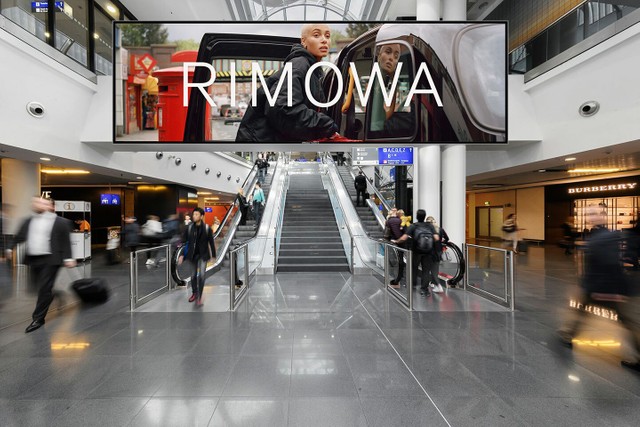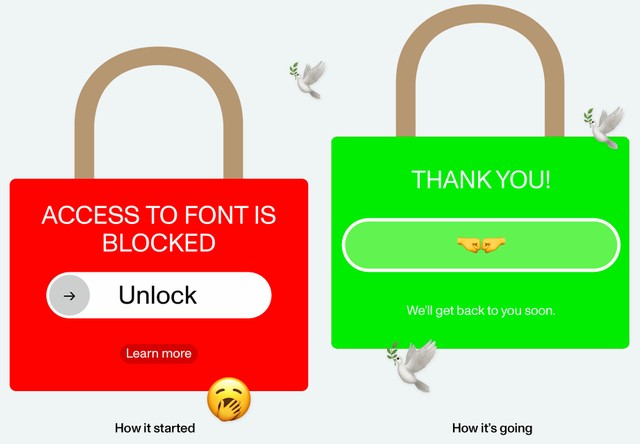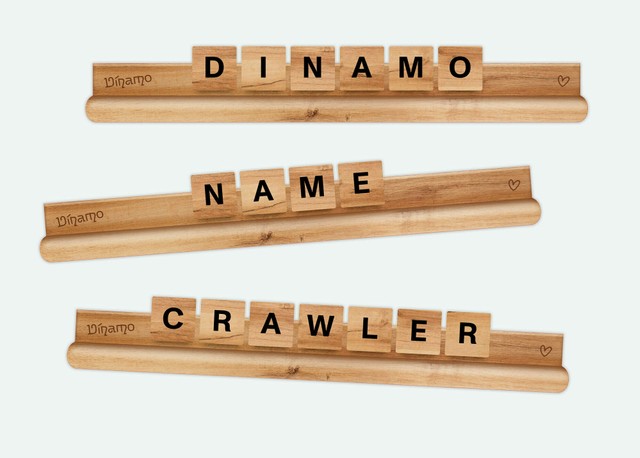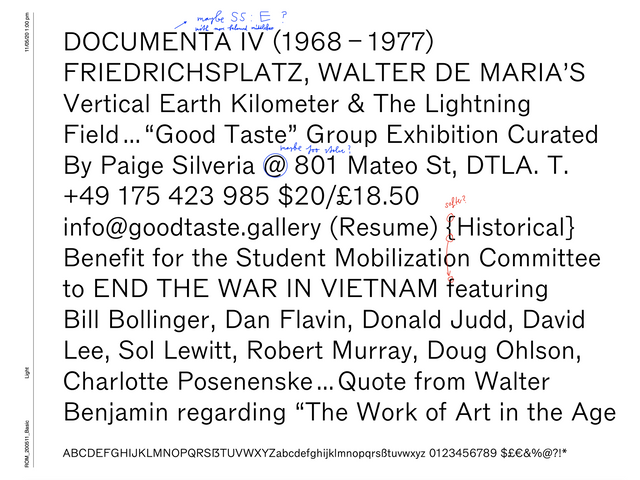
New Typeface Naming Tool, A Bespoke Typeface for RIMOWA + Early Access Fonts —
New Typeface Naming Tool
Everyone knows that a name is the most important part of a typeface. But finding a good name is difficult. Just like with web URLs, most good names are taken quickly. And you don’t want to run around with a great font that has a poor name—it makes you both look like fools.
So we built a new tool: the Dinamo Name Crawler. It generates names based on your choice of characters. You can crawl the names you like for further information, derivatives, and language translations. Maybe a translation proves to be the better name, or the beginning of a new name crawl?
To win, try finding a name for your typeface made from the greatest looking characters in the font. While crawling, you can save your favorite results to your own list and then we recommend reading these out loud: It helps determine their strength and sense of character, plus it entertains your neighbors.
Bespoke Typeface for RIMOWA
The bespoke typeface we’ve designed for RIMOWA has just begun its global roll-out, and the project is now documented our website.
To offer you a bit of a backstory, we caught up with the design team that gave us the job: London-based Commission studio. We spoke with founder and creative director Christopher Moorby about the process behind designing a new identity for the century-old luggage brand, and what a bespoke font brought to the table. What follows is a little excerpt from our conversation, and for more on the project, head this way.
What were you looking to achieve with your new visual identity for RIMOWA?
The ambition for the identity was always to create something that spoke the same language as the product itself. The previous branding from the ’80s felt disconnected from the actual luggage, which feels incredibly engineered, with every detail carefully considered. The former branding felt like ’80s corporate design for Nintendo or Oral B. It had no relationship to the product—in fact, the logo used to be applied to the suitcases as a sticker, which I think is the perfect metaphor for the problems with it visually.
What kind of style were you imagining for the bespoke typeface?
We knew from the outset we wanted it to be based on the workhorse grotesques that originated around the same time as the company in Germany. This felt like a very natural fit conceptually, but also aesthetically: Engineered, neutral, modernist. But we wanted some idiosyncratic details within it that would set it apart and tie it to the history and design language of RIMOWA. In our eyes Dinamo are the eccentric workhorse specialists—always finding interesting visual hooks to make gothic typefaces special and distinct. They also know what’s the right amount of detail too—experts at finding the balance between unique character and workaday usefulness.
No doubt the best slide we’ve ever sent to a client.
New Early Access Releases
The type world spins fast these days. It makes us want to slow down our own release speed, allowing for our fonts to surface a little more gradually and in a more considered way. To turn down the speed of the publishing carousel, typefaces in our Early Access section are available by “request only” prior to their official release. If you’re interested in using them, click the lock, fill in the relevant information, and we’ll get back to you 🔓
ABC Synt is now ready to unlock
🤔😵🤧
Designed by Kaj Lehmann, ABC Synt is in the Scotch Roman style with a parametric stem-rhythm. It made its first appearance in issue 17 of sound and club culture magazine zweikommasieben, which Kaj also co-publishes. ABC Synt reimagines the typefaces documented in The Practise of Typography (1900) by Theodore Low De Vinne—a book that tells the story of the Scotch Roman style—in the context of a techno beat.
During the research phase, Kaj investigated systematized (or unitized) letter-widths and spacing system, finding that De Vinne mentions a so-called ‘self-spacing’ type that was developed by Benton, Waldo & Co. With this ‘self-spacing’ type, metal-cast letters had specified widths to speed up the typesetting process: It enabled typesetters to compose justified text by hand much quicker. At a later date, unitized letter-widths were introduced for hot-metal and phototypesetting, and now in contemporary, digital type design, the letter widths are defined on a grid of 1,000 units. For ABC Synt, Kaj developed a stricter unitized system, which divides the letters into a maximum of 28 units, and then synchronizes the distances between and within the letters. This conceptual approach defines the design of the typeface.
As a result ABC Synt’s rhythm is strict, with each stem at an equal distance from the last; its speed can be turned up or down by selecting different styles of the font’s slant cuts, which sit at drastic angles. Another special detail of the font is the little kink at the end of the stems. It counter-balances the weight and helps to print the typeface sharper.” ABC Synt has four styles: A Regular, Slant (with an angle of 16°), Turbo (with an angle of 32°), and Italics (with an angle of 16°). It’s available as a Variable Font (flexibility sliding from Upright to Turbo) or a Static Font (including the entire slant range).